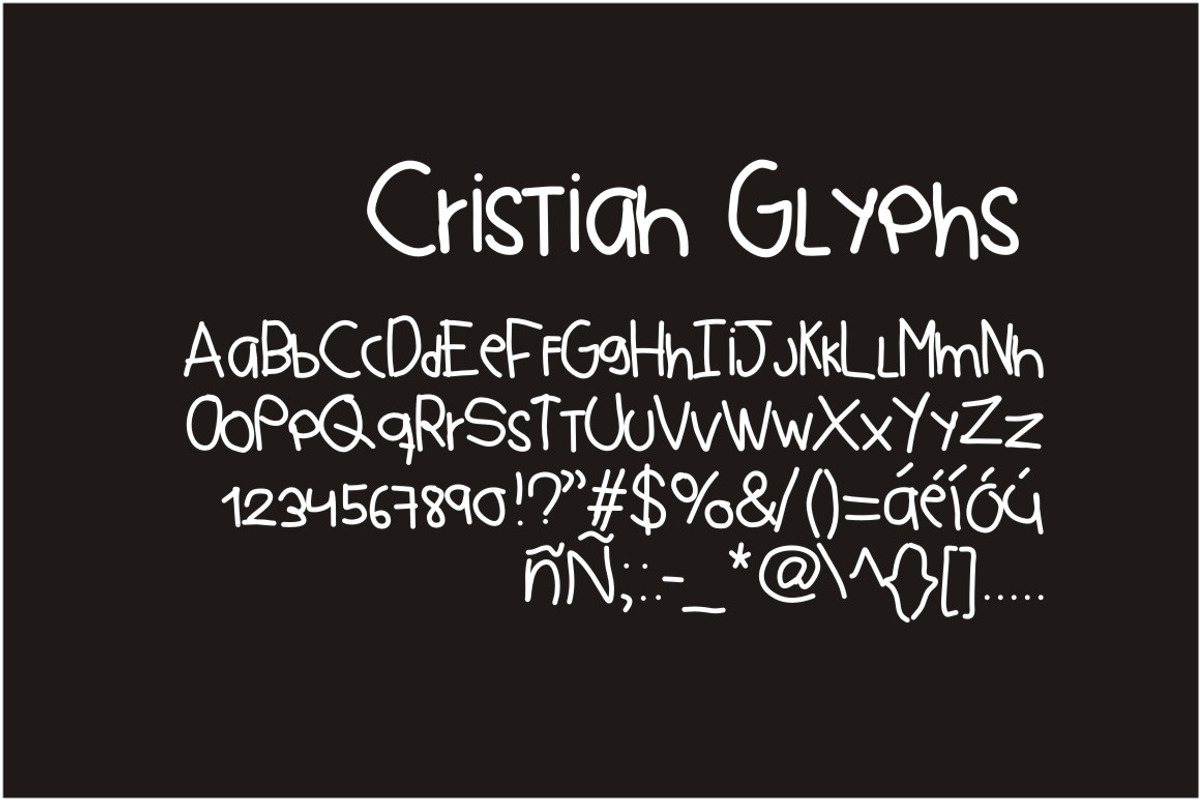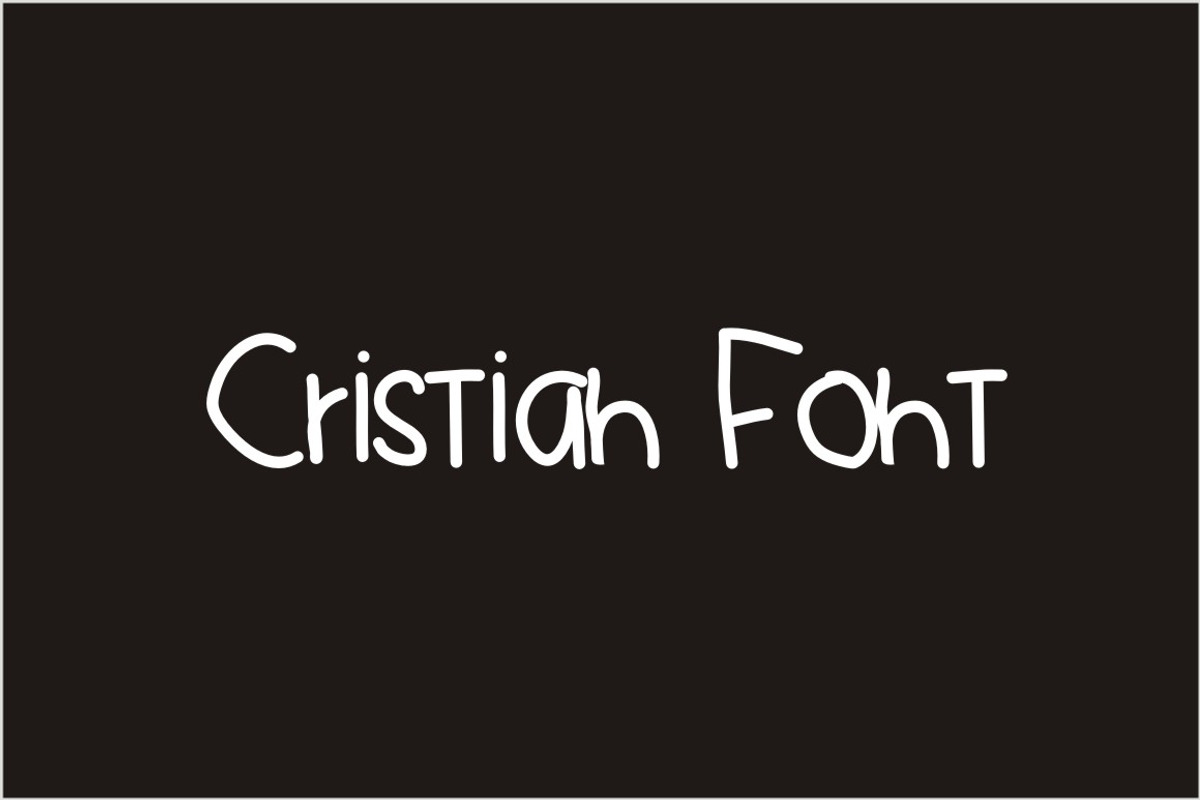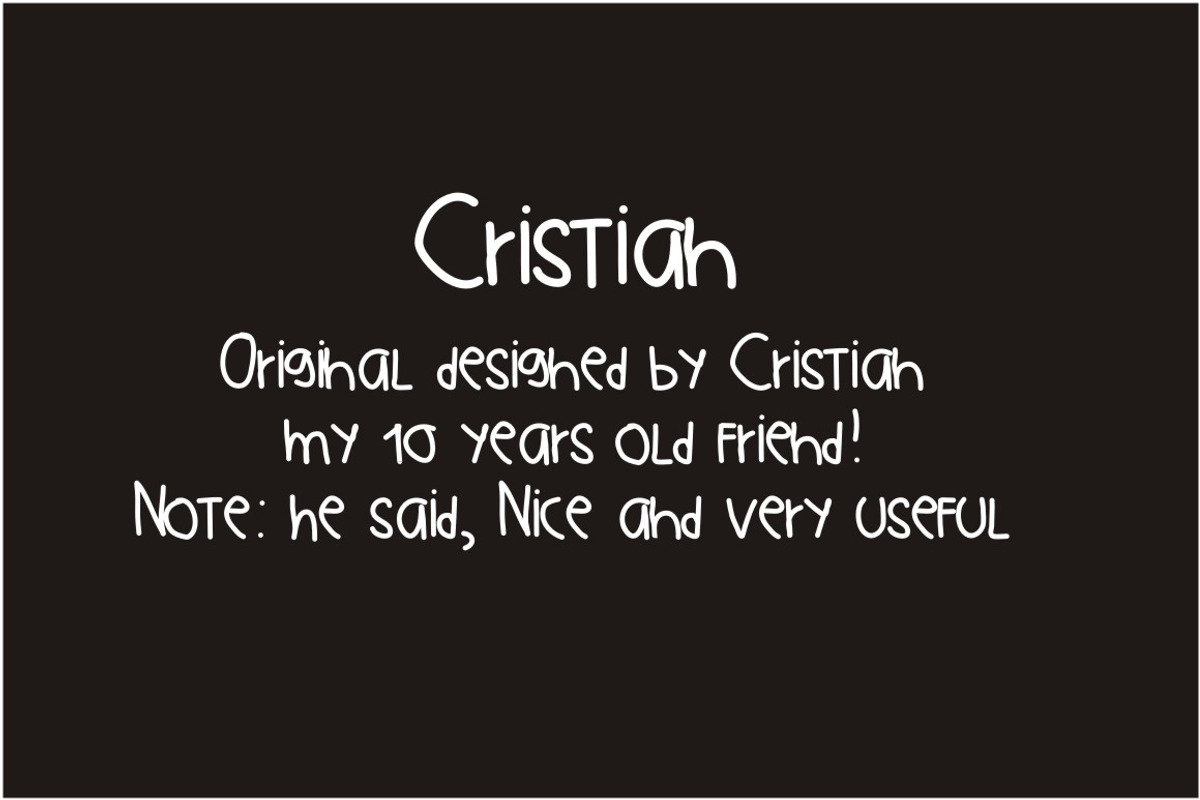
Cristian Font
Cristian Font by Fonts & Printables is a font selected for branding, posters, packaging, typography.
- Cristian font, perfect to simulate a childish handwriting, all glyps, even accented.
Why Cristian Font is worth a look
Cristian Font by Fonts & Printables fits naturally into Branding, posters, packaging, typography.